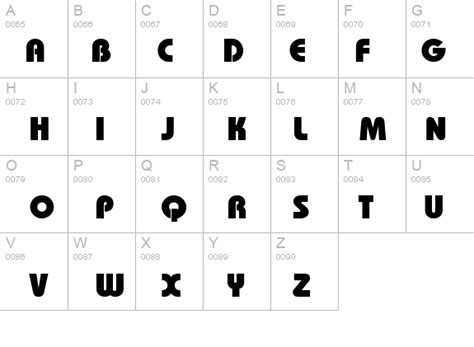
Hey guys! Are you on the hunt for that perfect font to make your designs pop? Look no further! The Bahamas Heavy T Font might just be what you need. This font is known for its bold, eye-catching style, making it a favorite for various creative projects. In this guide, we’ll dive into everything you need to know about the Bahamas Heavy T Font, including where to find it for free and how to use it effectively in your designs. Let’s get started!
What is the Bahamas Heavy T Font?
The Bahamas Heavy T Font is a typeface celebrated for its strong and assertive appearance. Its robust letterforms command attention, making it an excellent choice for headlines, posters, and branding materials. The font embodies a sense of confidence and solidity, which can significantly enhance the visual impact of any design project. Many designers appreciate its versatility, as it can be adapted to suit a wide range of styles, from modern and minimalist to vintage and industrial. The distinct characteristics of the Bahamas Heavy T Font include its uniform stroke weight, clean lines, and well-defined letter shapes. These features contribute to its legibility and ensure that it remains readable even at smaller sizes. When used effectively, this font can convey a message of strength and reliability, making it a valuable asset in any designer’s toolkit. Its unique personality allows it to stand out from more generic fonts, adding a touch of originality and character to your work. Whether you’re designing a logo, creating marketing materials, or working on a personal project, the Bahamas Heavy T Font can help you achieve a professional and polished look. Moreover, the availability of the Bahamas Heavy T Font for free download makes it accessible to a broad audience, including students, hobbyists, and professional designers alike. This accessibility ensures that more people can benefit from its distinctive aesthetic and incorporate it into their creative endeavors. Understanding the nuances and best uses of the Bahamas Heavy T Font can elevate your design work and help you create visually stunning and impactful projects. It’s a font that not only looks good but also adds a layer of depth and meaning to your designs.
Why Choose Bahamas Heavy T Font?
So, why should you pick the Bahamas Heavy T Font over the sea of other fonts out there? Well, first off, its bold and heavy weight makes it perfect for grabbing attention. Whether you’re designing a poster, a website header, or even just a cool social media graphic, this font ensures your message gets noticed. It’s like the font is shouting, “Hey, look at me!” Plus, it’s super versatile. You can use it for both print and digital projects, and it works well with a variety of design styles. Need something that looks modern and sleek? Bahamas Heavy T Font can do that. Want a vintage vibe? Yep, it can handle that too. One of the best things about this font is its readability. Even though it’s bold, the letters are clear and well-defined, so your audience won’t have any trouble reading your message. No squinting or straining required! And let’s not forget the price – free! Who doesn’t love a high-quality font that doesn’t cost a dime? This makes it an excellent choice for students, freelancers, and anyone on a budget. You get a professional-looking font without breaking the bank. Furthermore, the Bahamas Heavy T Font’s unique character can add a touch of personality to your designs. It’s not just another generic font; it has a distinct style that can help your projects stand out from the crowd. Whether you’re creating a logo, designing marketing materials, or just working on a fun personal project, this font can give your work that extra edge. In a world where visuals are everything, having the right font can make all the difference. The Bahamas Heavy T Font is a reliable and stylish choice that can help you create impactful designs that leave a lasting impression. So go ahead, give it a try, and see how it can transform your projects!
Design Tips for Using Bahamas Heavy T Font
Now that you’ve got the Bahamas Heavy T Font installed, let’s talk about how to use it like a pro. This font is bold and attention-grabbing, so it’s perfect for making a statement. But, like any design element, it’s all about using it in the right way. First off , think about contrast. Because the Bahamas Heavy T Font is so bold, it works best when paired with a simpler, more understated font for body text. This creates a visual hierarchy and makes your design more readable. A classic sans-serif font like Arial or Helvetica can be a great choice, or you could go for a clean serif font like Times New Roman or Georgia. Next up , consider the color palette. The Bahamas Heavy T Font looks fantastic in a variety of colors, but it’s important to choose colors that complement each other and create the right mood. For a modern and energetic look, try pairing the font with bright, bold colors like blue, red, or yellow. For a more sophisticated and elegant feel, stick to a monochromatic color scheme or use muted tones like gray, beige, or navy. Another important tip is to pay attention to spacing. Because the Bahamas Heavy T Font is so bold, it can sometimes look crowded if the letters are too close together. Adjust the kerning and tracking to give the letters some breathing room and improve readability. You may also want to increase the line height to prevent the lines of text from overlapping. When using the Bahamas Heavy T Font in a logo or branding materials, make sure it aligns with your brand’s personality and values. If your brand is modern and edgy, the font can be a great choice. But if your brand is more traditional and conservative, you may want to opt for a more classic and understated font. Finally, don’t be afraid to experiment and have fun! Try using the Bahamas Heavy T Font in different sizes, styles, and contexts to see what works best for your designs. The more you play around with it, the more comfortable you’ll become using it and the more creative you’ll be able to get. So go ahead, unleash your inner designer and start creating amazing things with the Bahamas Heavy T Font !